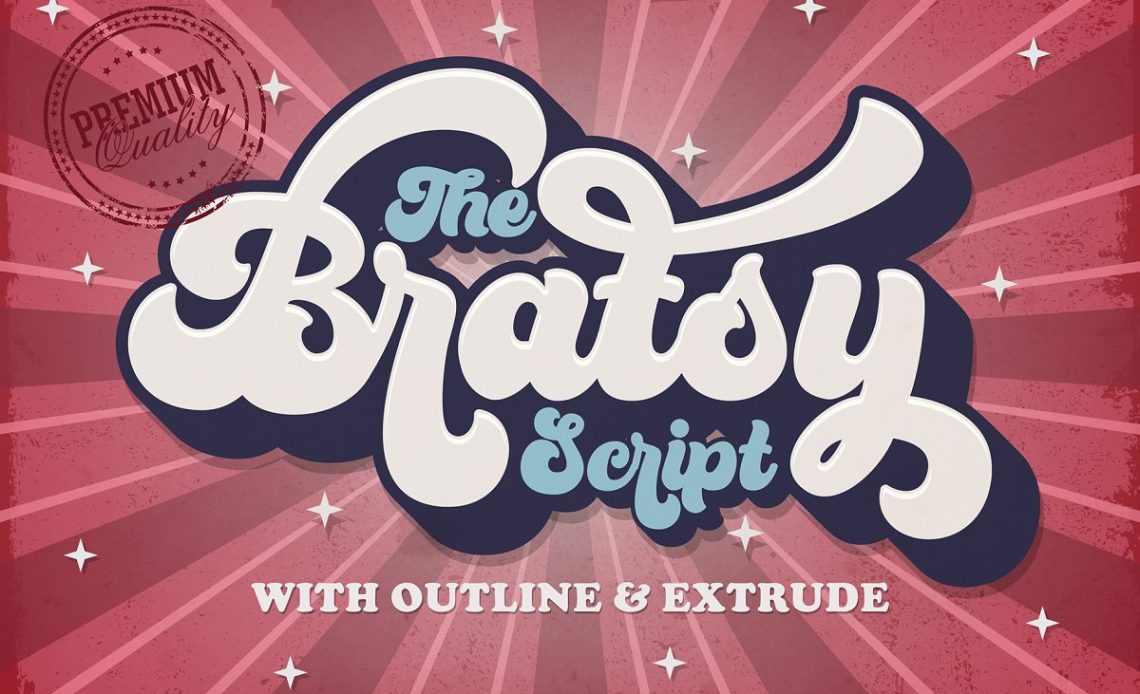
Looking for the perfect font for your next creative project? Look no further than the Bratsy Script - Layered Retro Font! This stunning script font, created by Icep Anwar Fadhil, is the ideal choice for anyone seeking a retro aesthetic with a modern touch.
The Bratsy Script is a bold and dramatic font that combines hand lettering with a layered design, resulting in a font with impressive movement and energy. It's perfect for logos, handwritten quotes, product packaging, headers, posters, merchandise, social media, and greeting cards. With its multilanguage support and extensive features, the Bratsy Script is a must-have for any designer's toolkit.